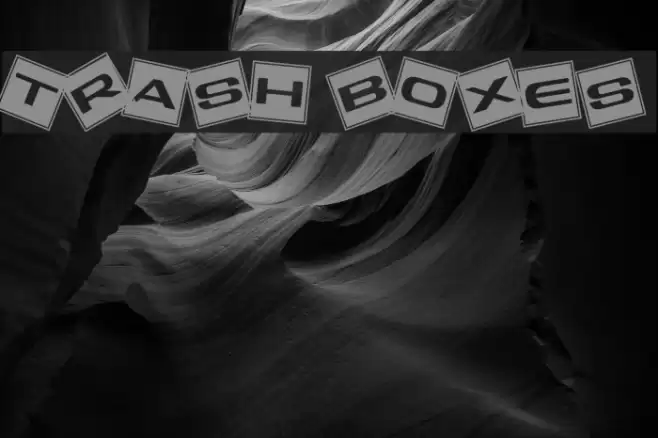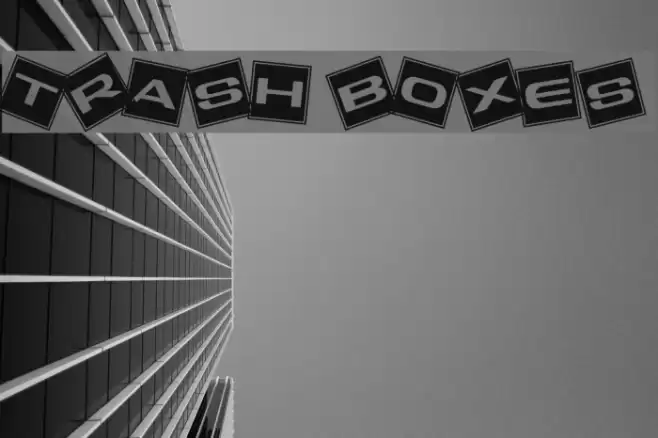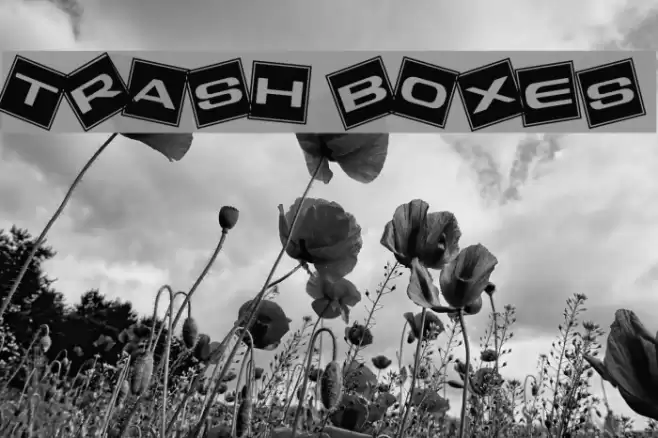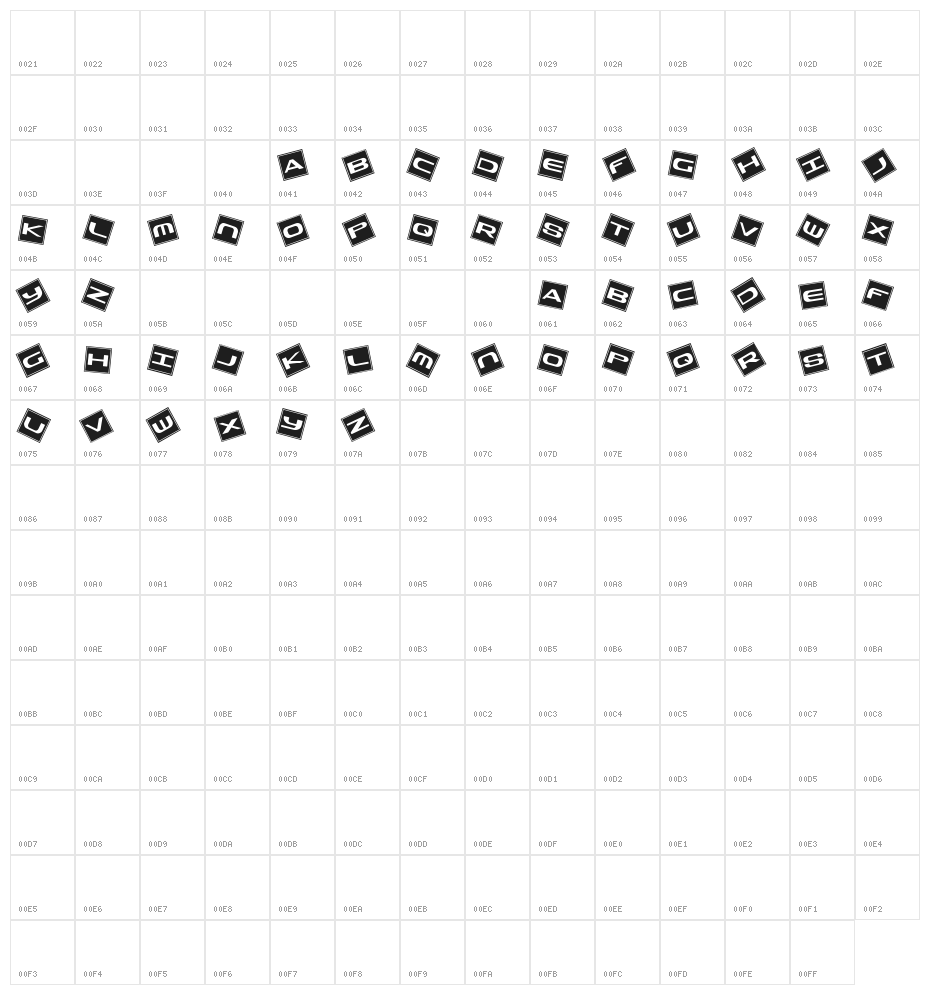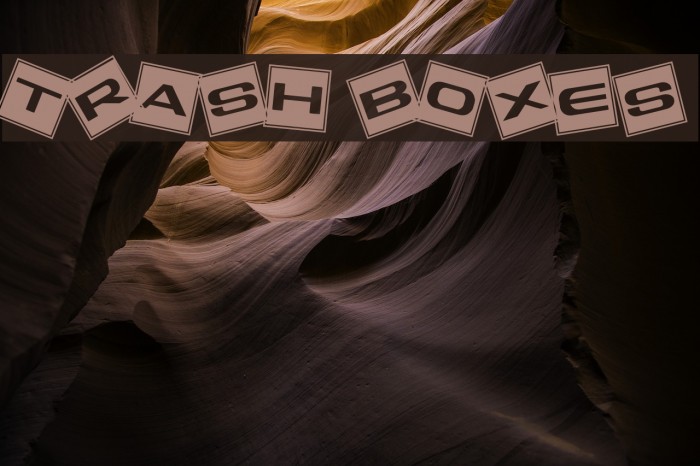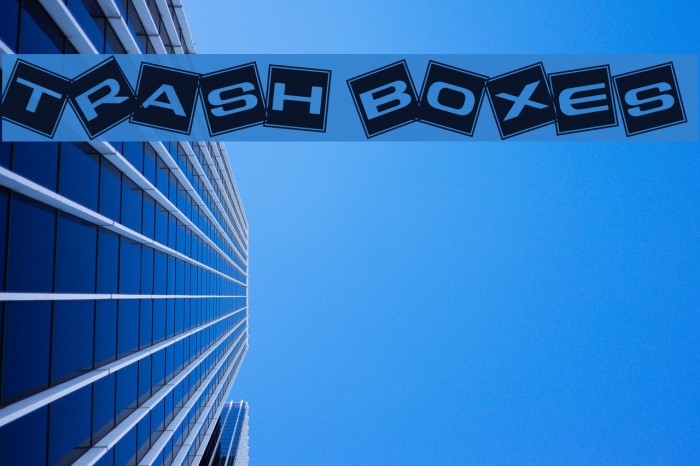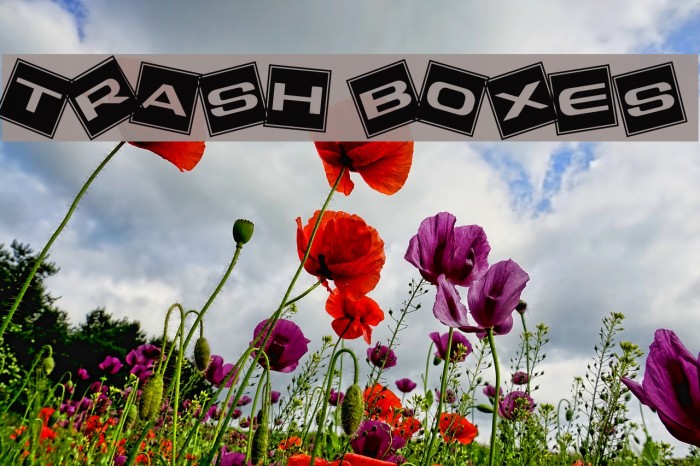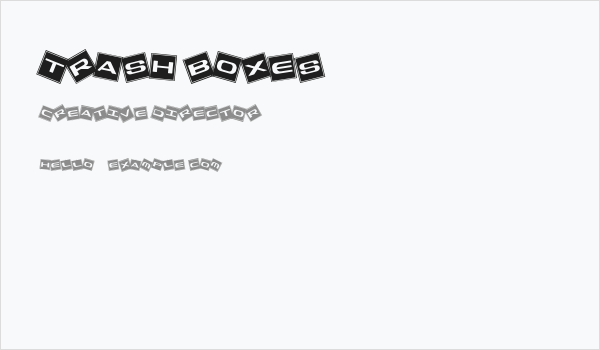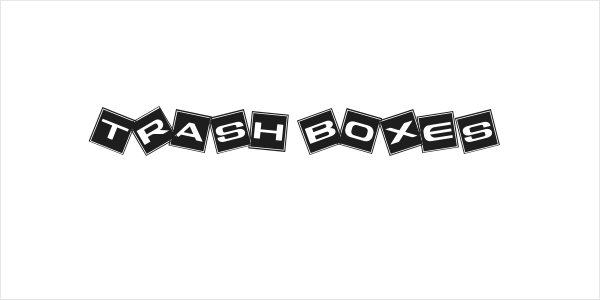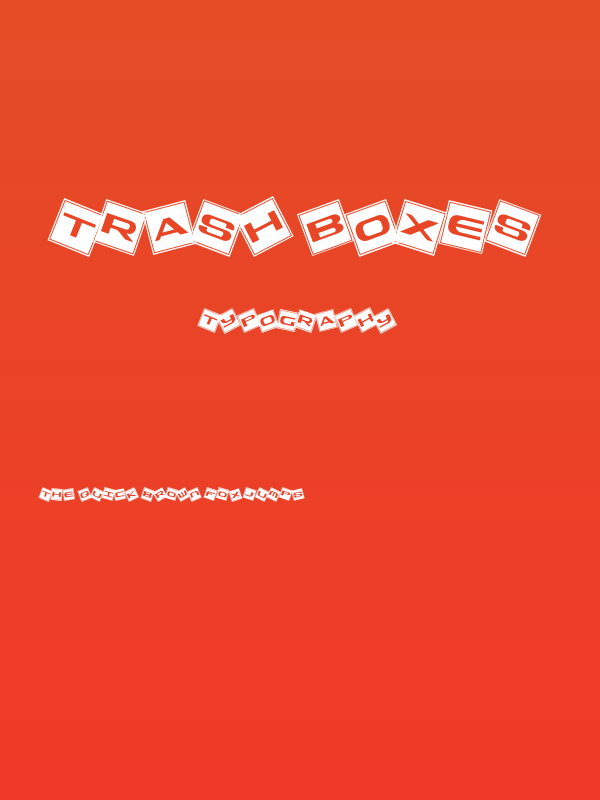
Trash Boxes Font
Trash Boxes Description
This font features a bold and playful design, with each character enclosed in a tilted box, creating a dynamic and energetic appearance. The letters are uppercase, with a consistent thickness that provides a strong visual impact. The style is reminiscent of a playful, cartoonish aesthetic, making it suitable for creative and informal projects. The characters are well-defined, with clear edges and a uniform weight, ensuring readability despite the quirky presentation. The font's unique boxed design adds a layer of depth and interest, making it stand out in any application.
A bold, playful font with characters enclosed in tilted boxes, perfect for creative projects from Decorative fonts.
- Proposed Projects: Ideal for children's book covers, playful posters, party invitations, and creative branding.
- Overall Style: Playful, Cartoonish